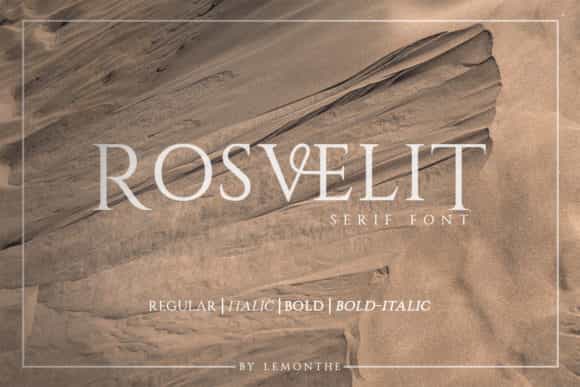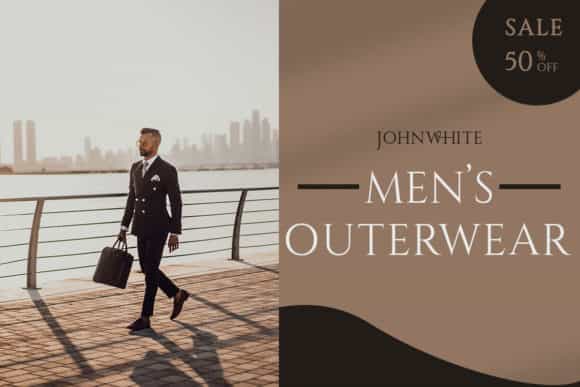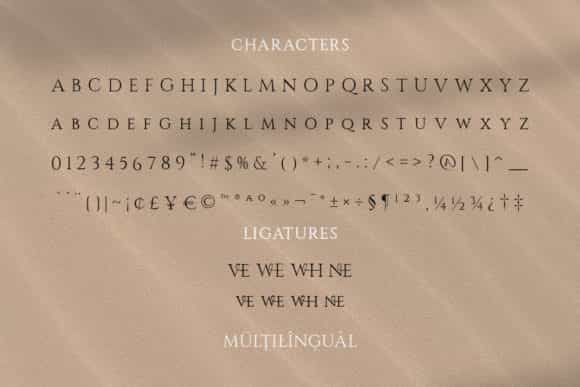
Rosvelit is a stylish and simple serif typeface. It’s a flexible font family that is designed to be strong and classic branding. Rosvelit Font is perfect for any logo, branding magazines, videos weddings, quotes, printing packaging for products, websites design, clothing designs, and more.